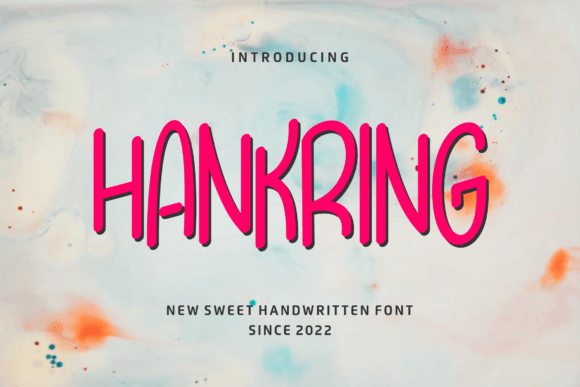
The Perfect Handwritten Touch: Discovering Hankring Font
Have you ever been working on a project, and you’re stuck on finding the perfect font to convey the right tone and emotion? You scroll through your font library, and suddenly, a spark of creativity hits you – a handwritten font that screams personality and style. For designers, the hunt for the perfect font is a constant quest, and today, we’re excited to introduce you to Hankring Font, a fun and fresh handwritten font that’s about to become your new go-to.
Hankring Font is designed to add a touch of warmth and personality to your projects. Whether you’re working on a branding campaign, a social media graphic, or a wedding invitation, this font is sure to make your designs stand out. With its playful and approachable feel, Hankring Font is the perfect addition to any project, and we’re confident that you’ll love the results.
Hankring Font Key Features
- Unique Characteristics: This font features a unique blend of modern and vintage elements, resulting in a distinctive and eye-catching design that can add a touch of sophistication to any project.
Hankring Font Review
Hankring Font is a beautiful, hand-drawn font that’s perfect for adding a personal touch to your designs. ✨ The font’s unique characteristics and imperfections give it a warm, organic feel that’s hard to replicate with more traditional fonts. ✨ The font is also highly customizable, with a wide range of weights and styles to choose from.
- Unique, hand-drawn aesthetic
- Highly customizable with various weights and styles
- Perfect for adding a personal touch to designs
However, Hankring Font is not without its limitations. ⚠️ The font can be quite heavy and overwhelming in large blocks of text, making it best suited for headings and short paragraphs. ⚠️ Additionally, the font’s imperfections can sometimes make it difficult to read, particularly in smaller sizes.
- Can be too heavy and overwhelming in large blocks of text
- Imperfections can make it difficult to read in smaller sizes
Overall, I’d give Hankring Font 4 out of 5 stars. It’s a beautiful, unique font that’s perfect for adding a personal touch to your designs, but it does have some limitations that need to be taken into consideration.
Tips for Getting the Most Out of Hankring Font
Use Hankring Font to create unique and eye-catching headlines, titles, and text elements. Experiment with different font sizes, colors, and styles to achieve the desired effect. Combine Hankring Font with other design elements to create visually appealing and engaging designs.
Hankring Font is ideal for use in branding, marketing materials, and digital designs. Use it to create bold and eye-catching headlines, titles, and text elements that grab the attention of your audience.